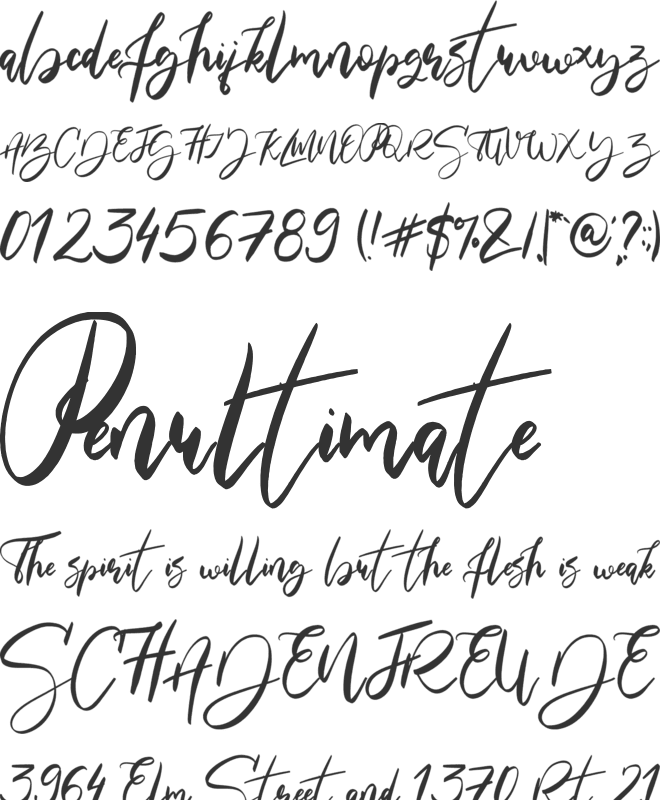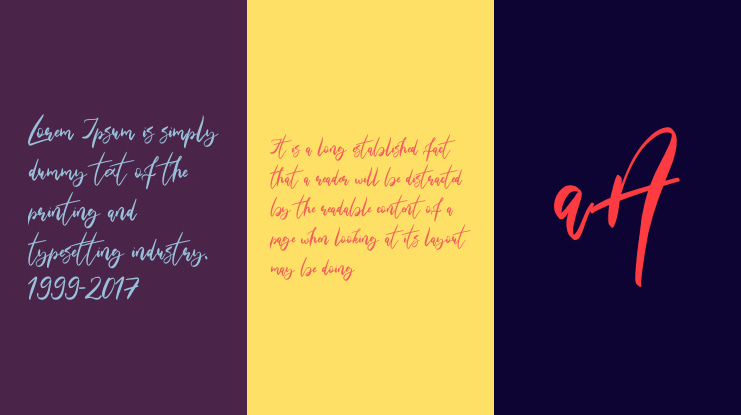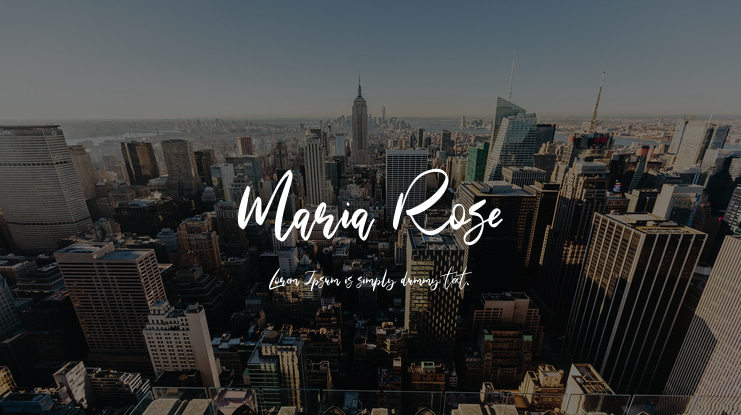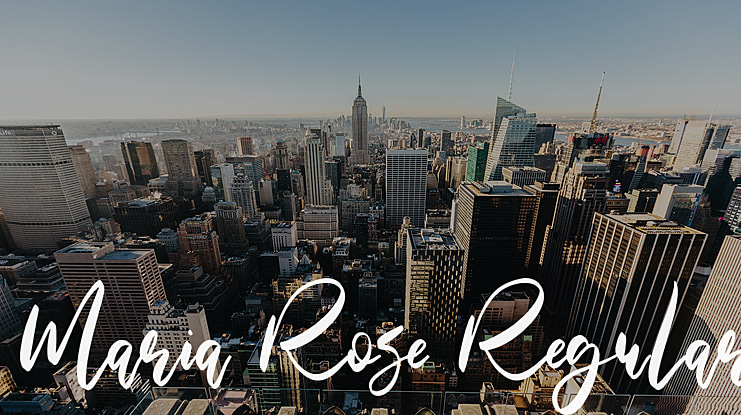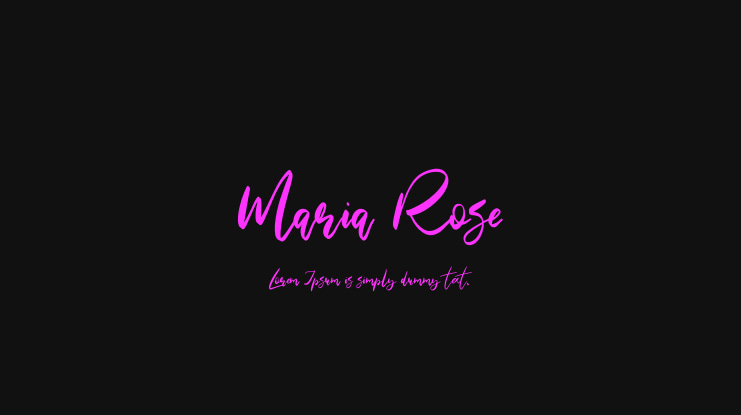
Maria Rose Font
Maria Rose is an elegant Font that has a true hand drawn look and feel. This version is free for personal use and you can purchase full version with SVG option on my Creative Market Store: